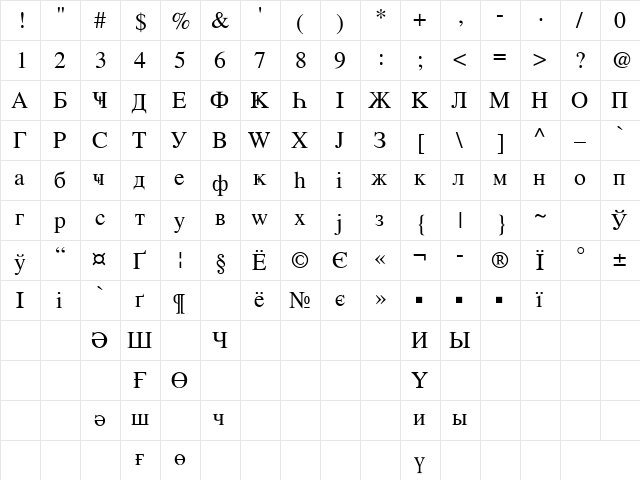
Az-Times_Cyr Normal
Design Context for Az-Times_Cyr Typeface
Az-Times_Cyr offers clean, dependable letterforms without strong stylistic allegiance, making it a practical choice for designers who need flexibility.